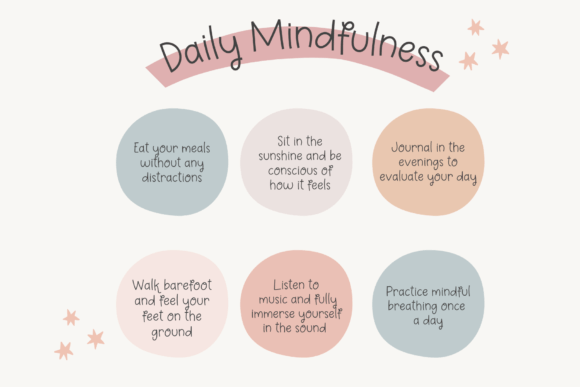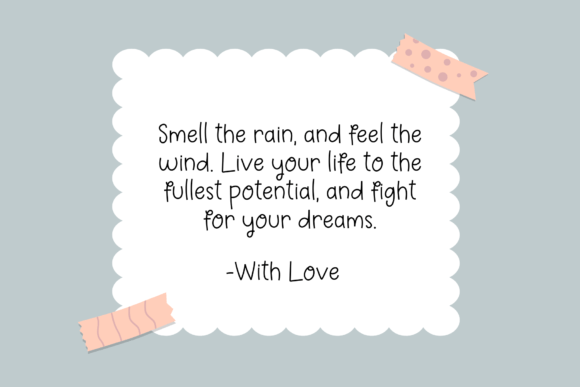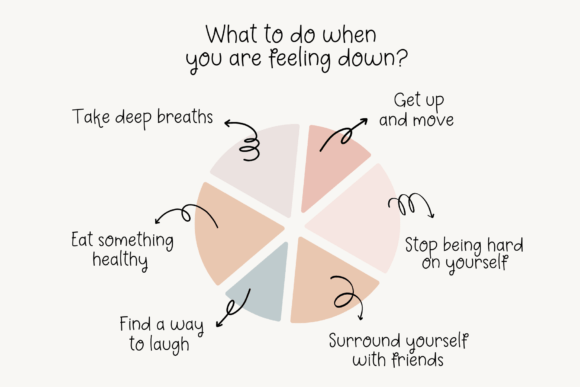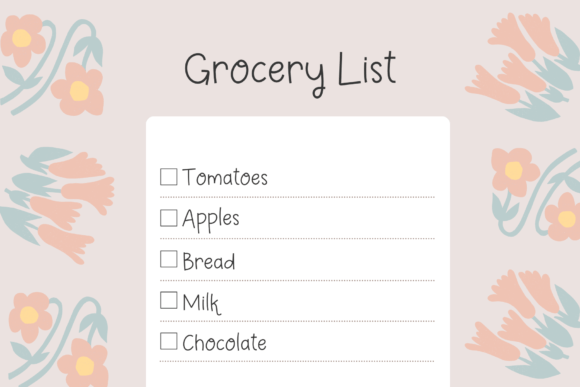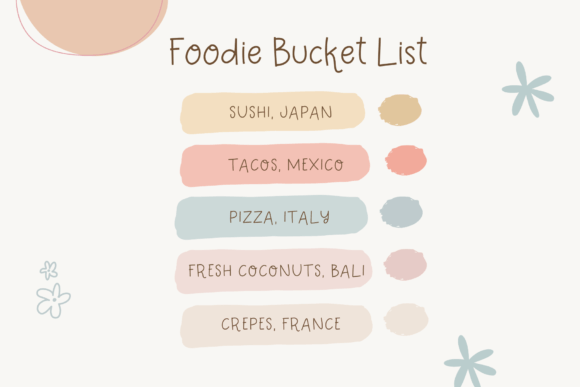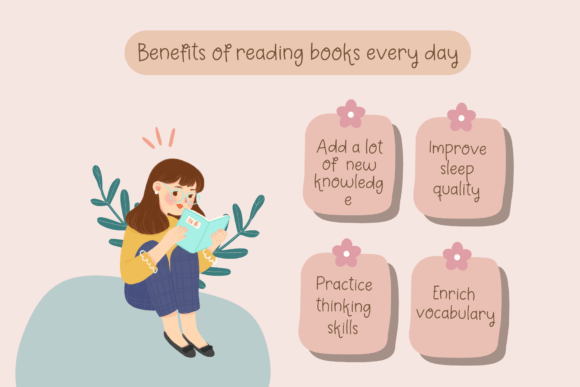
Introducing the Deliciously Fun Chocolate Rootbeer Font
Are you looking for a unique and playful font to add a touch of personality to your digital creations? Look no further than the Chocolate Rootbeer Font! This delightful font is perfect for designers, crafters, and anyone who loves to add a dash of whimsy to their work. In this article, we’ll dive into the world of Chocolate Rootbeer Font and explore its many uses, from digital planners to craft projects.
What is Chocolate Rootbeer Font?
Chocolate Rootbeer Font is a handwriting-style font that mimics the look of handwritten text with a playful, cursive feel. Its unique charm makes it perfect for adding a personal touch to various digital projects, from planners and journals to invitations and social media graphics. The font’s distinctive style is reminiscent of root beer floats and chocolate treats, evoking a sense of nostalgia and fun.
Uses for Chocolate Rootbeer Font
You can use Chocolate Rootbeer Font to jazz up a wide range of digital projects, including:
- Digital planners: Add a personal touch to your digital planner with this fun and playful font.
- Journals: Create a unique and engaging journal with Chocolate Rootbeer Font.
- Invitations: Make your invitations stand out with this eye-catching font.
- Note-taking: Add some personality to your notes with Chocolate Rootbeer Font.
Why Choose Chocolate Rootbeer Font?
So why choose Chocolate Rootbeer Font over other fonts? Here are just a few reasons:
- Unique style: Chocolate Rootbeer Font has a distinctive, handwriting-style look that’s sure to stand out.
- Playful vibe: This font adds a touch of whimsy and fun to any project.
- Versatility: Use Chocolate Rootbeer Font for a wide range of projects, from digital planners to craft projects.
Tips for Using Chocolate Rootbeer Font
Here are a few tips for getting the most out of Chocolate Rootbeer Font:
- Experiment with different colors: Try pairing Chocolate Rootbeer Font with different colors to create a unique look.
- Mix and match fonts: Combine Chocolate Rootbeer Font with other fonts to create a distinctive style.
- Use it for headings and titles: Chocolate Rootbeer Font is perfect for headings and titles, adding a touch of personality to your text.
| Font Name | Chocolate Rootbeer Font |
| Author | Cotton White Studio |
In conclusion, Chocolate Rootbeer Font is a fun and versatile font that’s perfect for designers, crafters, and anyone looking to add a touch of personality to their digital creations. With its unique style, playful vibe, and compatibility with a wide range of design tools, Chocolate Rootbeer Font is sure to become a favorite in your font collection. So why not give it a try and see what deliciously fun creations you can come up with?